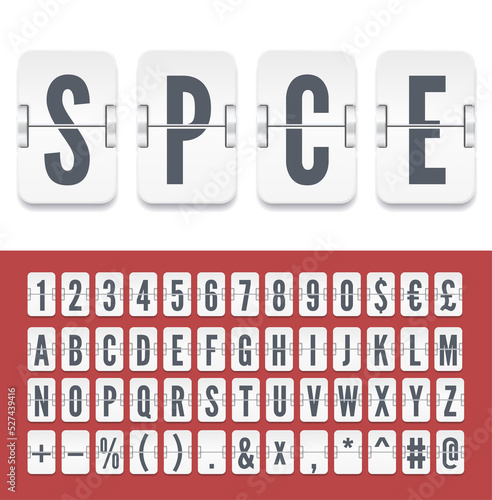
White Retro airline flip board alphabet to display departure to open Space. Narrow airport terminal mechanical scoreboard font with numbers for flight destination or arrival info. Vector illustration